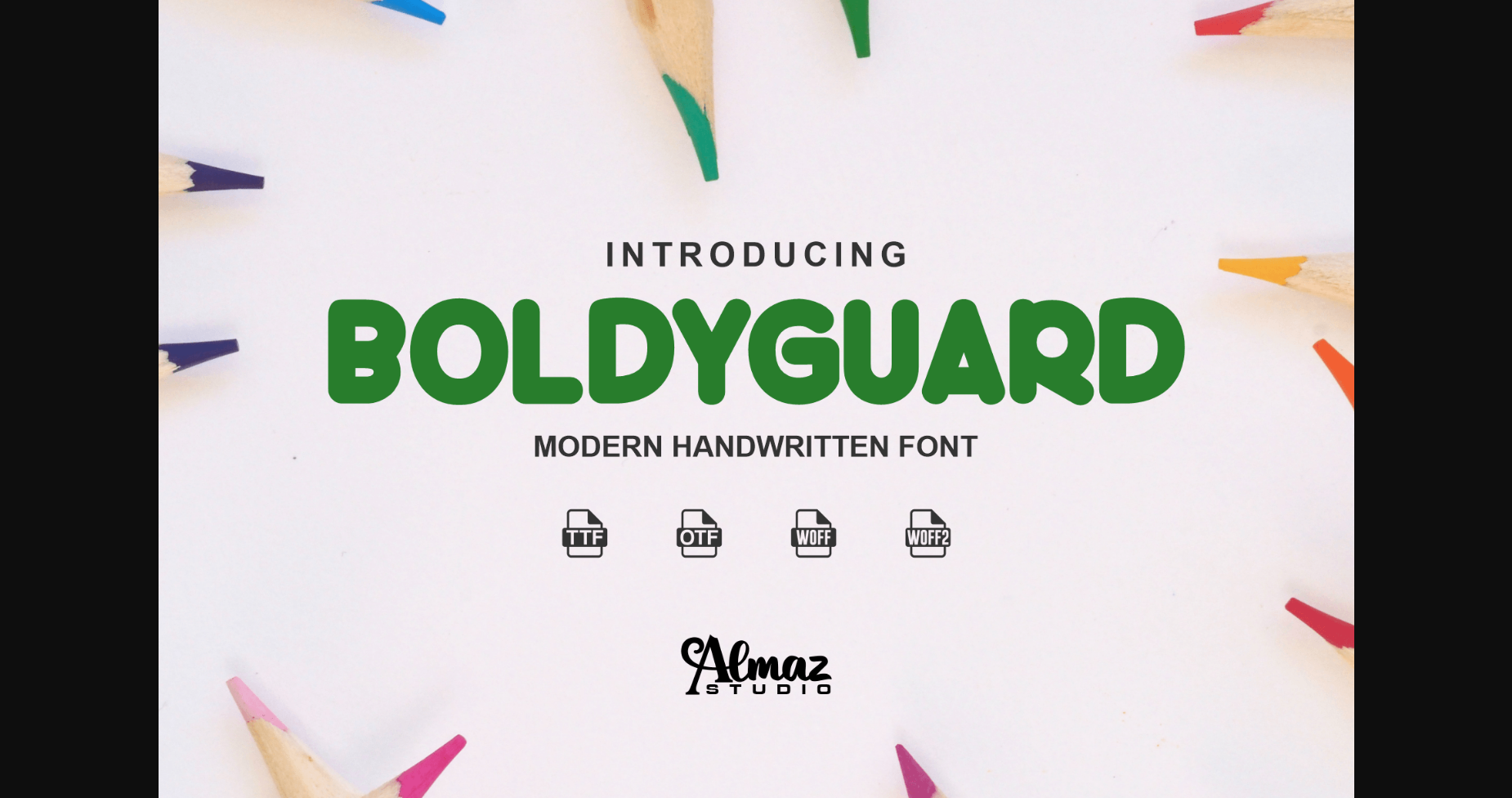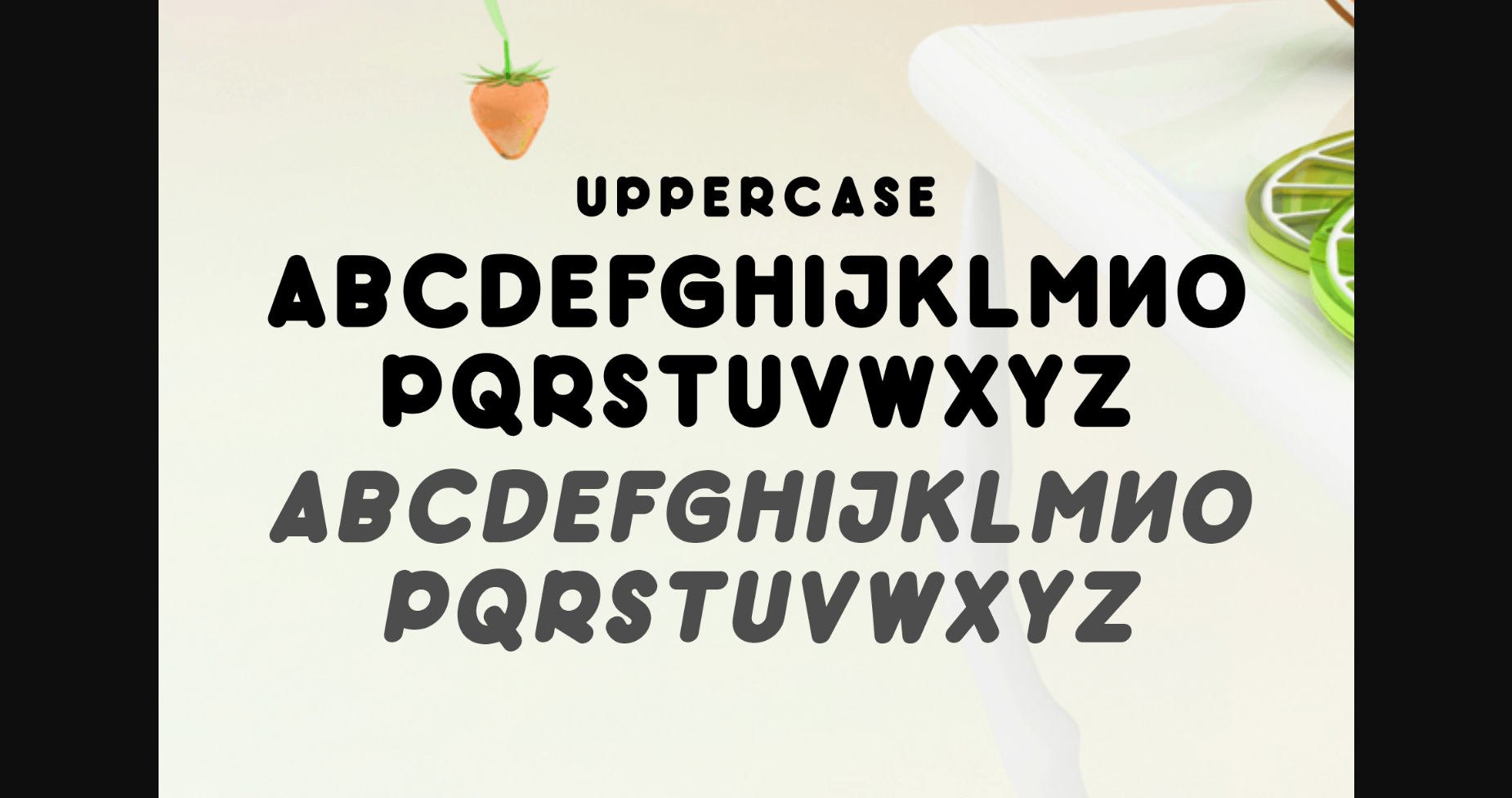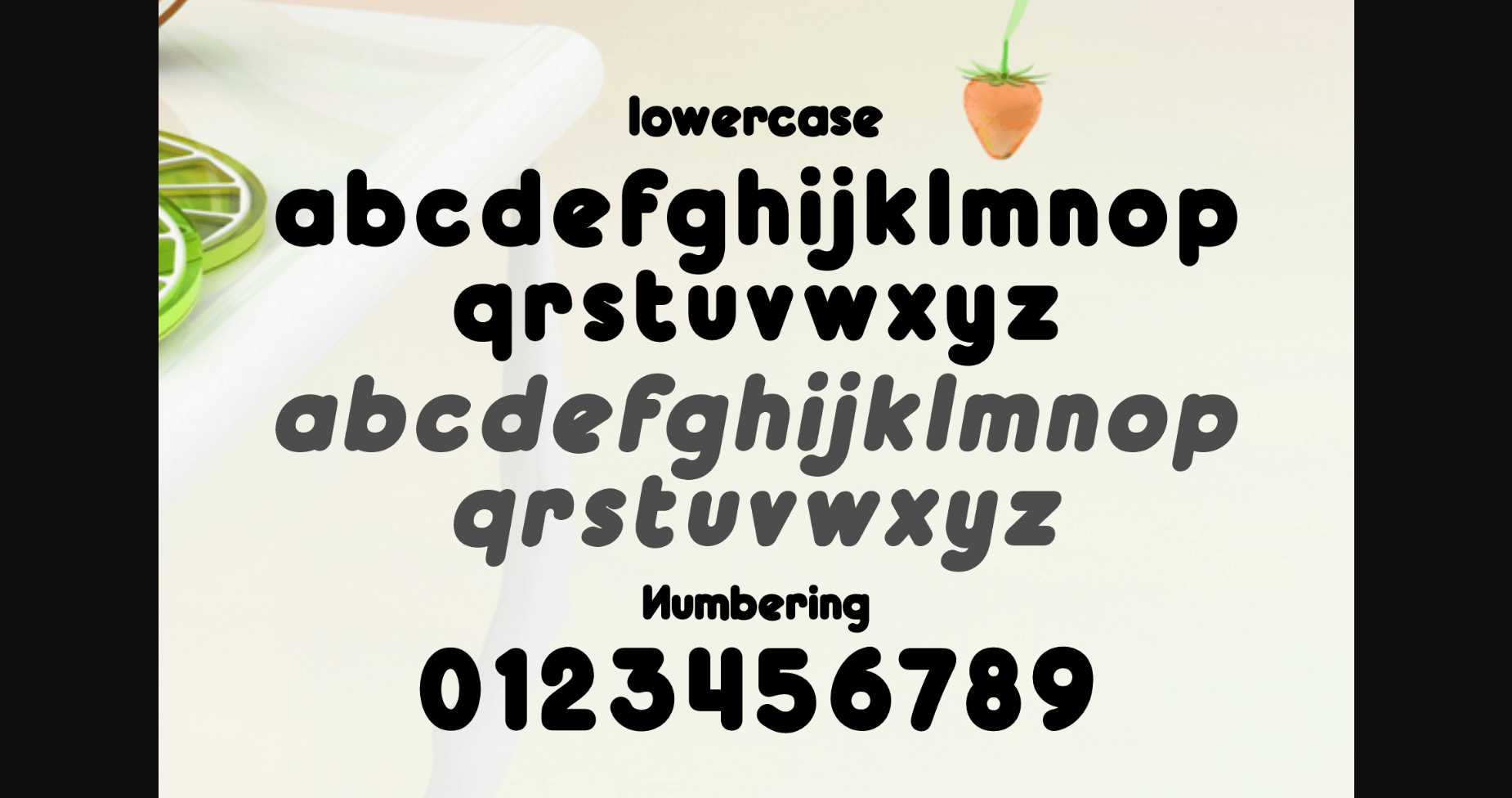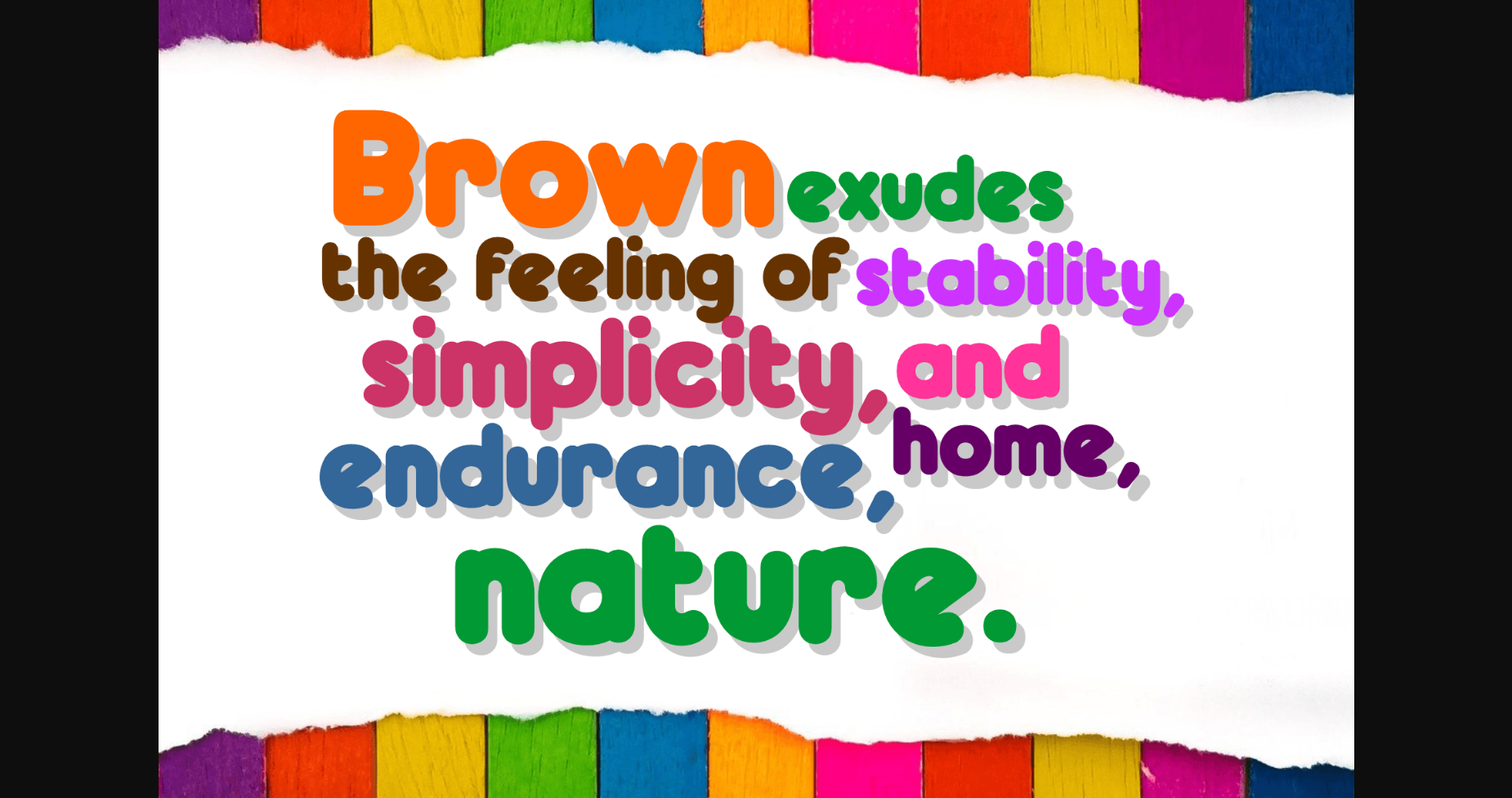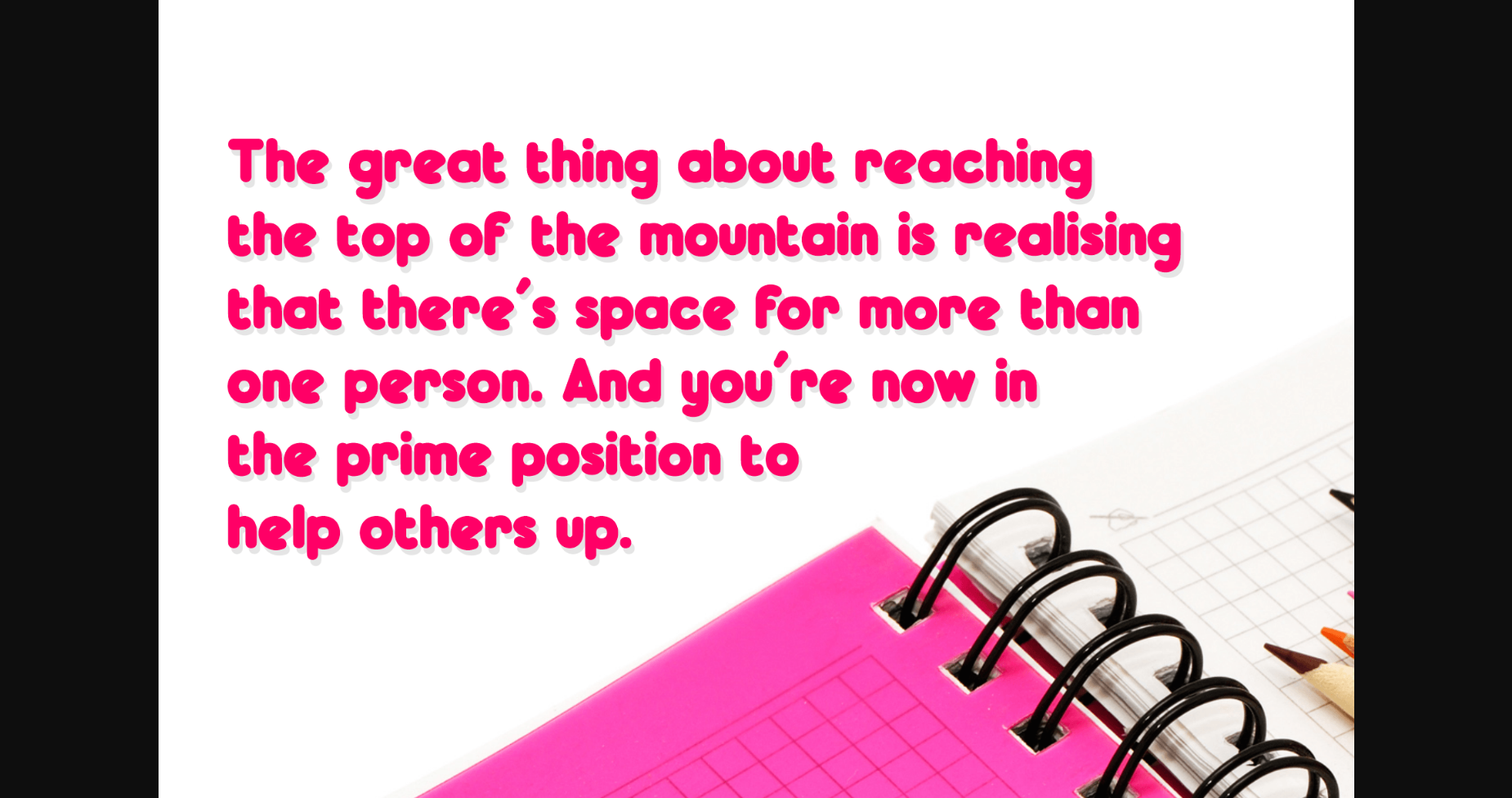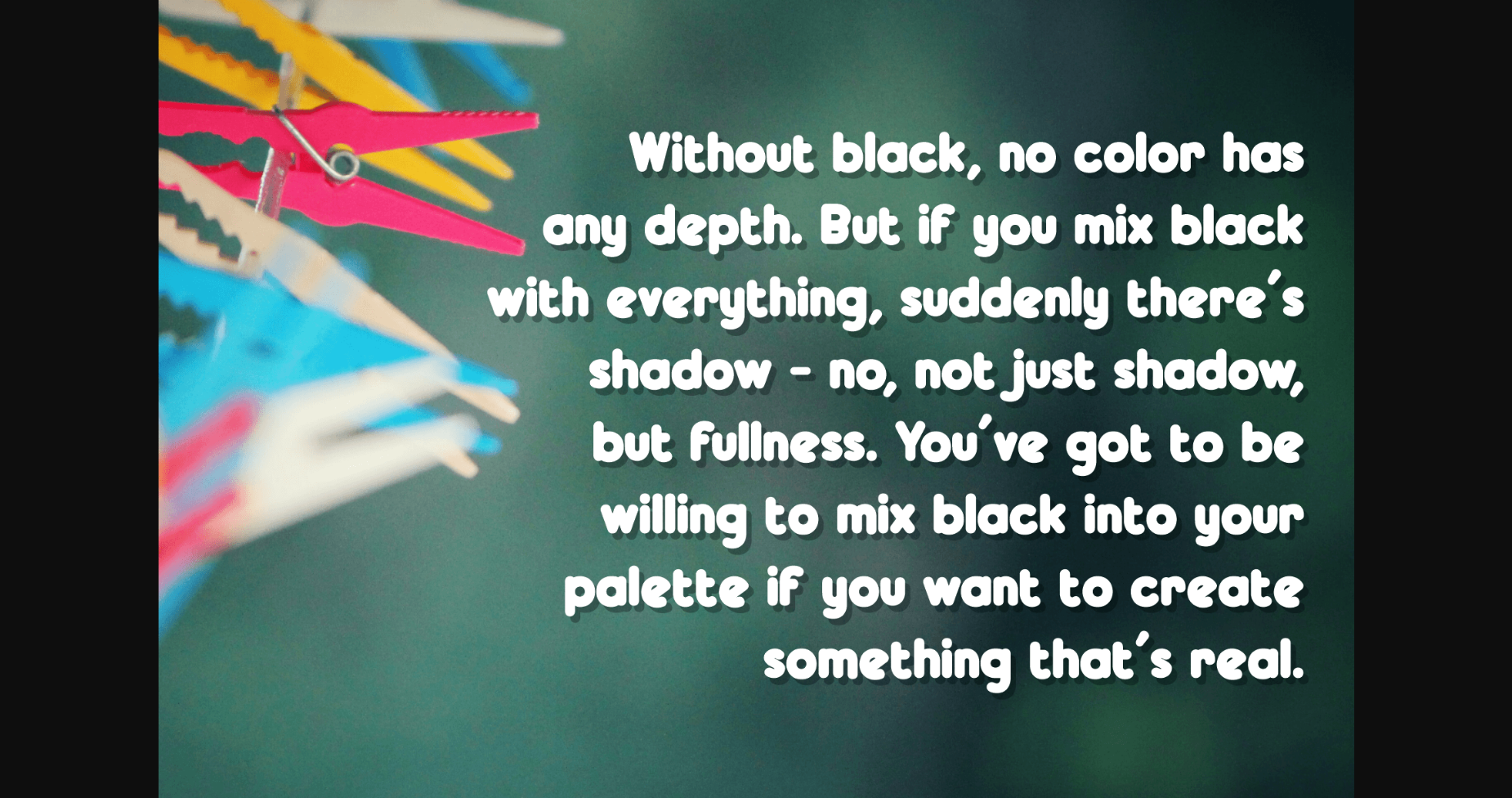
Boldyguard is a font that will make your design looks bold, modern, unique and fun. Perfect for playful kids font with cartoon style. This font is specially crafted for children, Kids, Boys, Kindergarten, Birthday, and Comic purposes. Boldyguard font has a unique glyph and fun style. This is a fun & chunky display font. It’s a cute and amazing display font that will make children’s themed designs stand out!
With rounded corners and chubby bold looks, brings joy, smiles, and excitement to your upcoming projects. Suit perfectly for posters, game titles, cartoon movies, credit titles, magazines, and so on. Have fun!